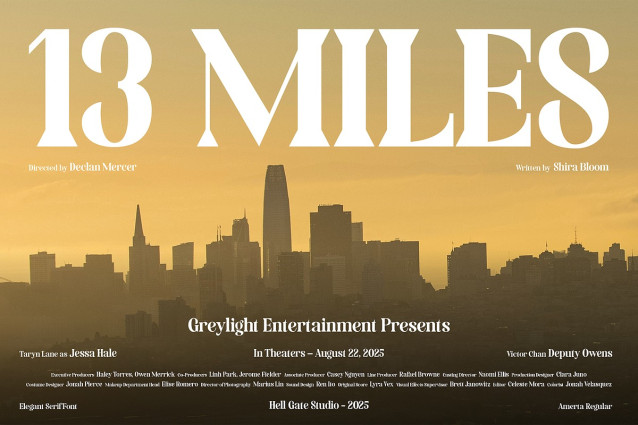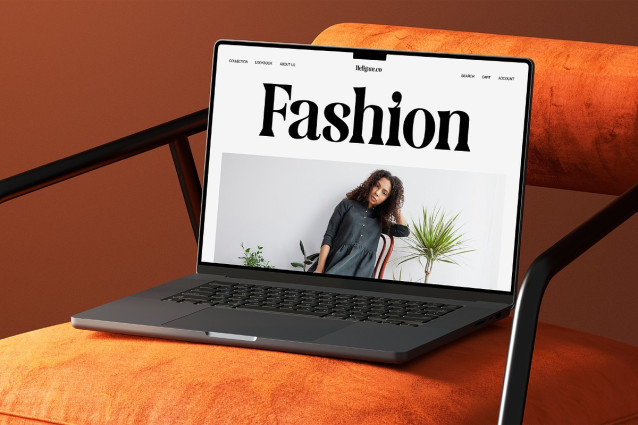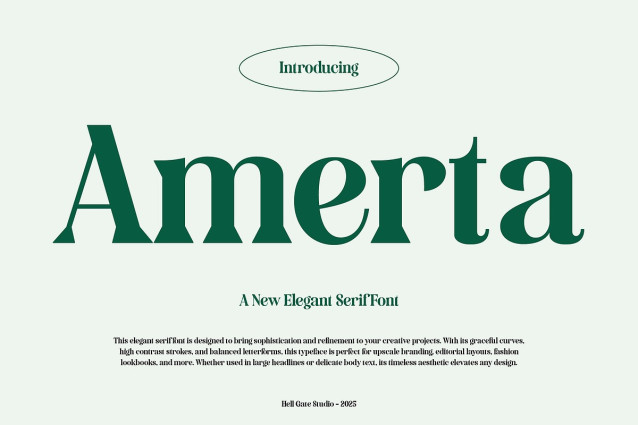
Amerta Font
Amerta Font, a perfect blend of elegance and versatility. This unique typeface lends a touch of sophistication to any theme and is remarkably convenient to modify, both in terms of text and color. High-quality rendering ensures a crisp, clear visual effect.